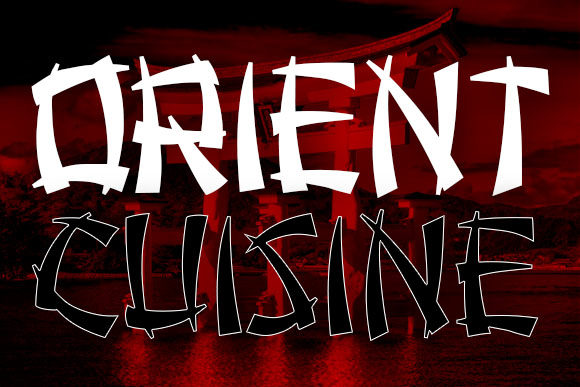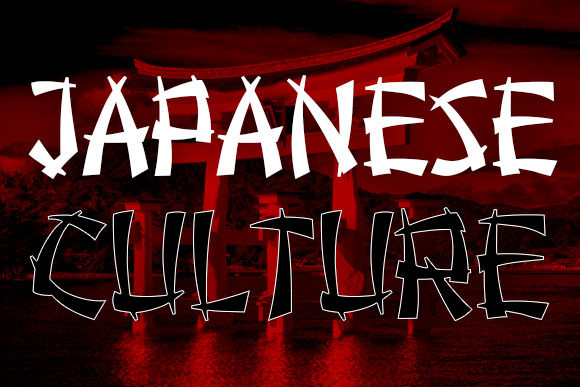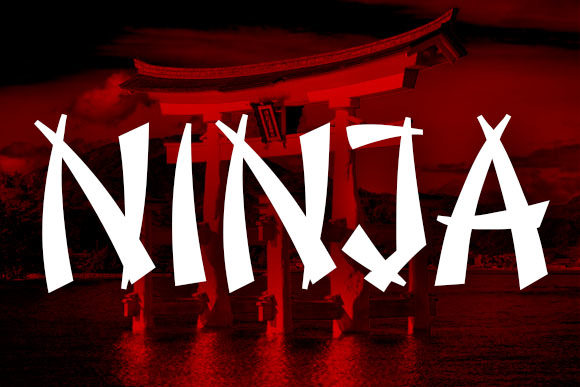
Introduction to Hiroshima Font
You know that moment when you’re brainstorming ideas for a creative project and the perfect font just clicks? That’s exactly what happened when I stumbled upon the Hiroshima Font. Its unique blend of Japanese inspiration and modern flair made my design dreams come true.
As a designer, I can attest that having a reliable and versatile font library is essential. The Hiroshima Font checks all the boxes – high quality, great readability, and a striking touch that elevates any design. Whether you’re working on a poster, banner, flyer, or print, this font is sure to make a lasting impression.
What sets Hiroshima Font apart is its value for designers. Not only is it free to download, but it also comes with a transparent background, making it easy to customize and integrate into your designs. With its sleek and modern aesthetic, the Hiroshima Font is a valuable addition to any design resource – and I’m excited to share its secrets with you.
Key Features of Hiroshima Font
- High-quality design resource for creative projects, featuring a unique and elegant style.
- Comes in a single weight, making it ideal for projects where a simple, clean look is desired.
- Perfect for use in logos, headings, and body text, adding a touch of sophistication and elegance to any creative project.
Honest Review: Hiroshima Font
As a designer, I’m always on the lookout for high-quality design resources that can elevate my creative projects. Recently, I stumbled upon the Hiroshima Font, and I’m excited to share my honest review with you.
What works well: ✨ The Hiroshima Font has a unique and elegant design that makes it perfect for titles, headings, and other prominent text elements. It’s also incredibly versatile, with a wide range of weights and styles to choose from. I particularly love the transparent background option, which allows for seamless integration with background images or videos.
What doesn’t work so well: ⚠️ While the Hiroshima Font is available for free download, the quality can be a bit inconsistent across different font sizes and styles. Additionally, the font may not be suitable for very small text sizes, as the details can get lost.
Overall, I’m impressed with the Hiroshima Font, and I’d definitely recommend it for creative projects that require a high level of design sophistication. Just be aware of its limitations, and use it judiciously to get the best results.
- Unique and elegant design
- Wide range of weights and styles
- Not suitable for very small text sizes
Tips for Getting the Most Out of Hiroshima Font
To get the most out of the Hiroshima Font, consider the following tips:
- Use the font on a transparent background for a clean and modern look.
- Experiment with different font sizes and colors to create visual interest.
The Hiroshima Font is ideal for a variety of creative projects, including:
- Brochures and flyers.
- Business cards and letterheads.
- Social media graphics and posts.